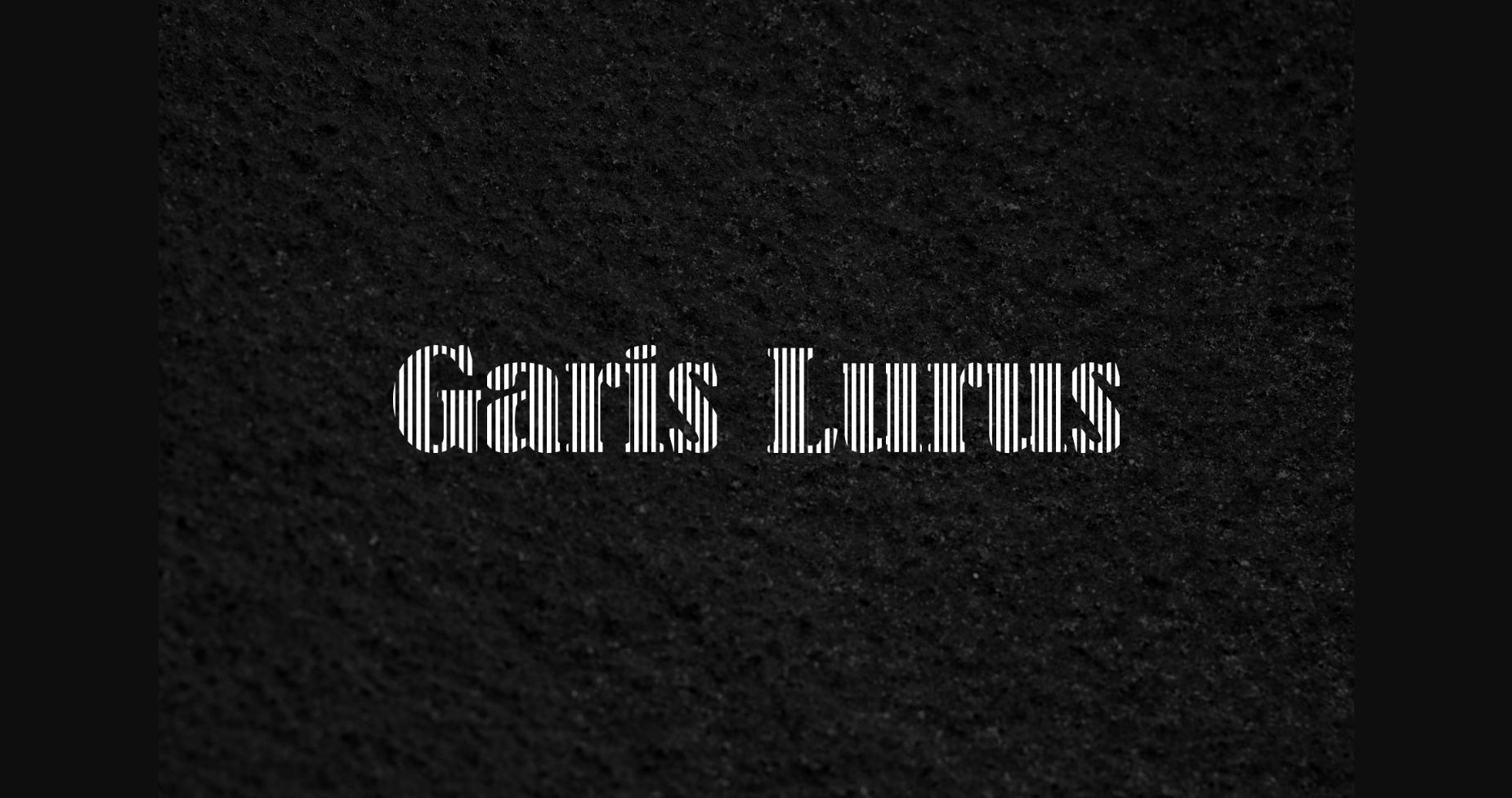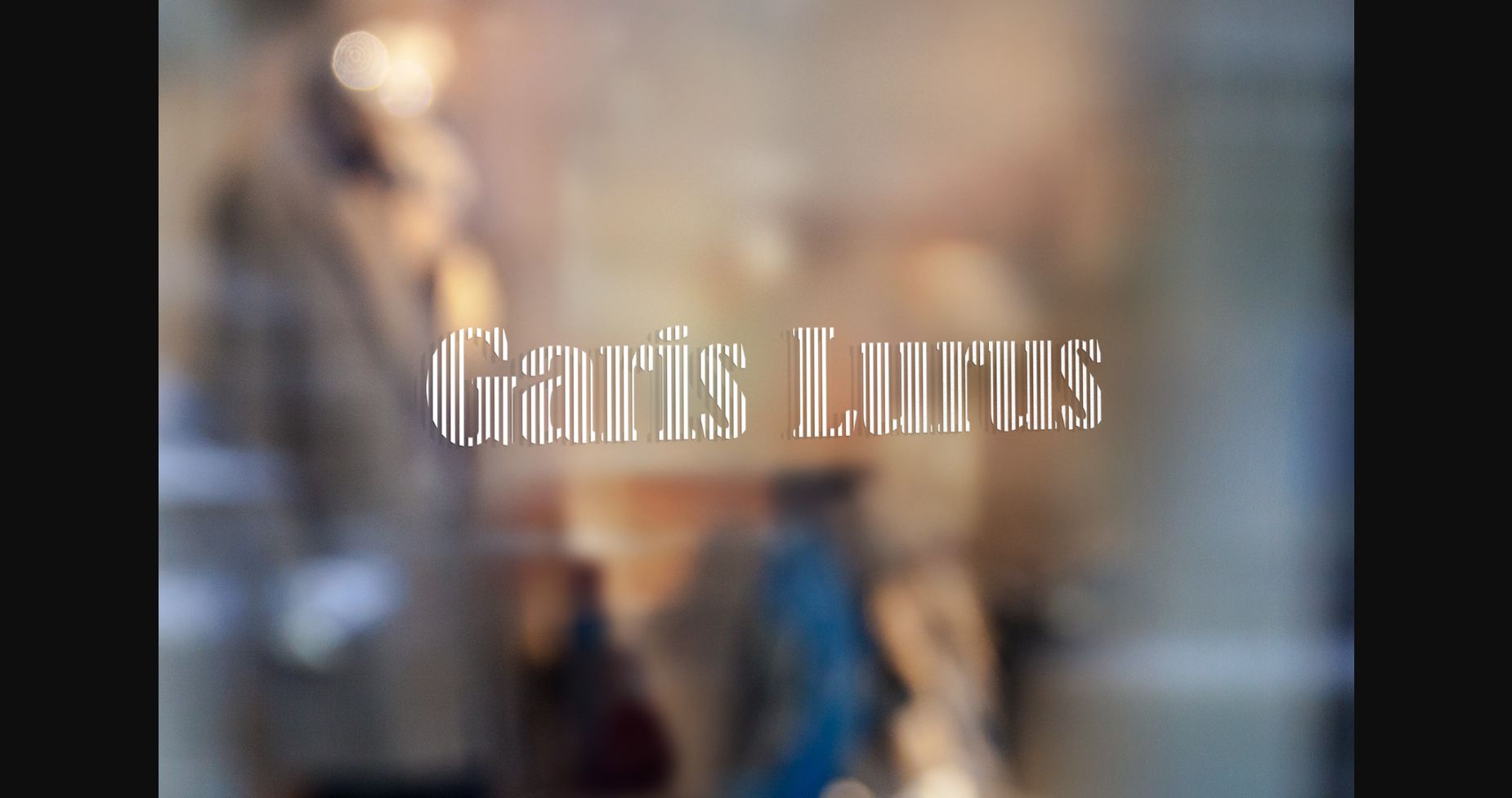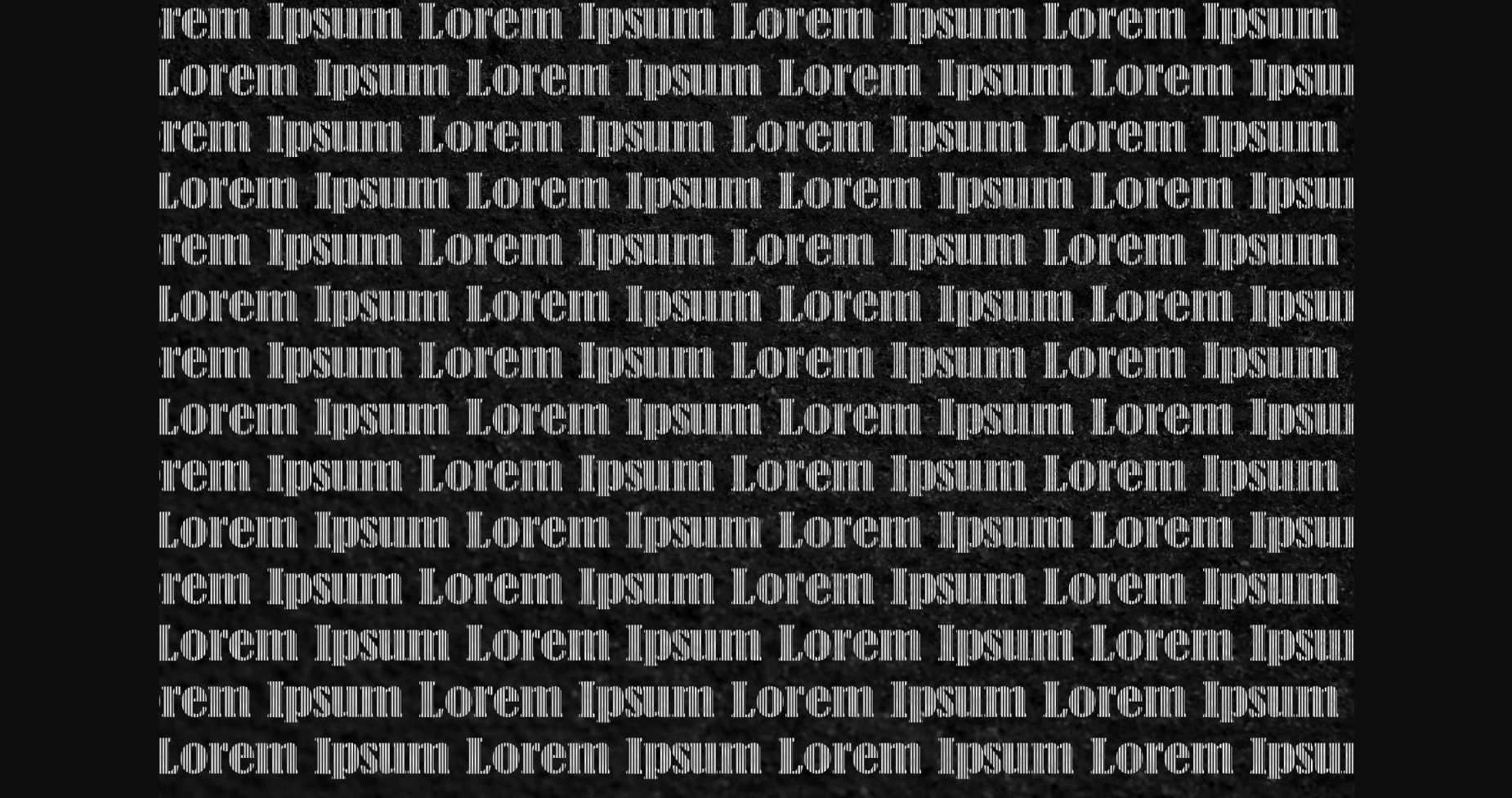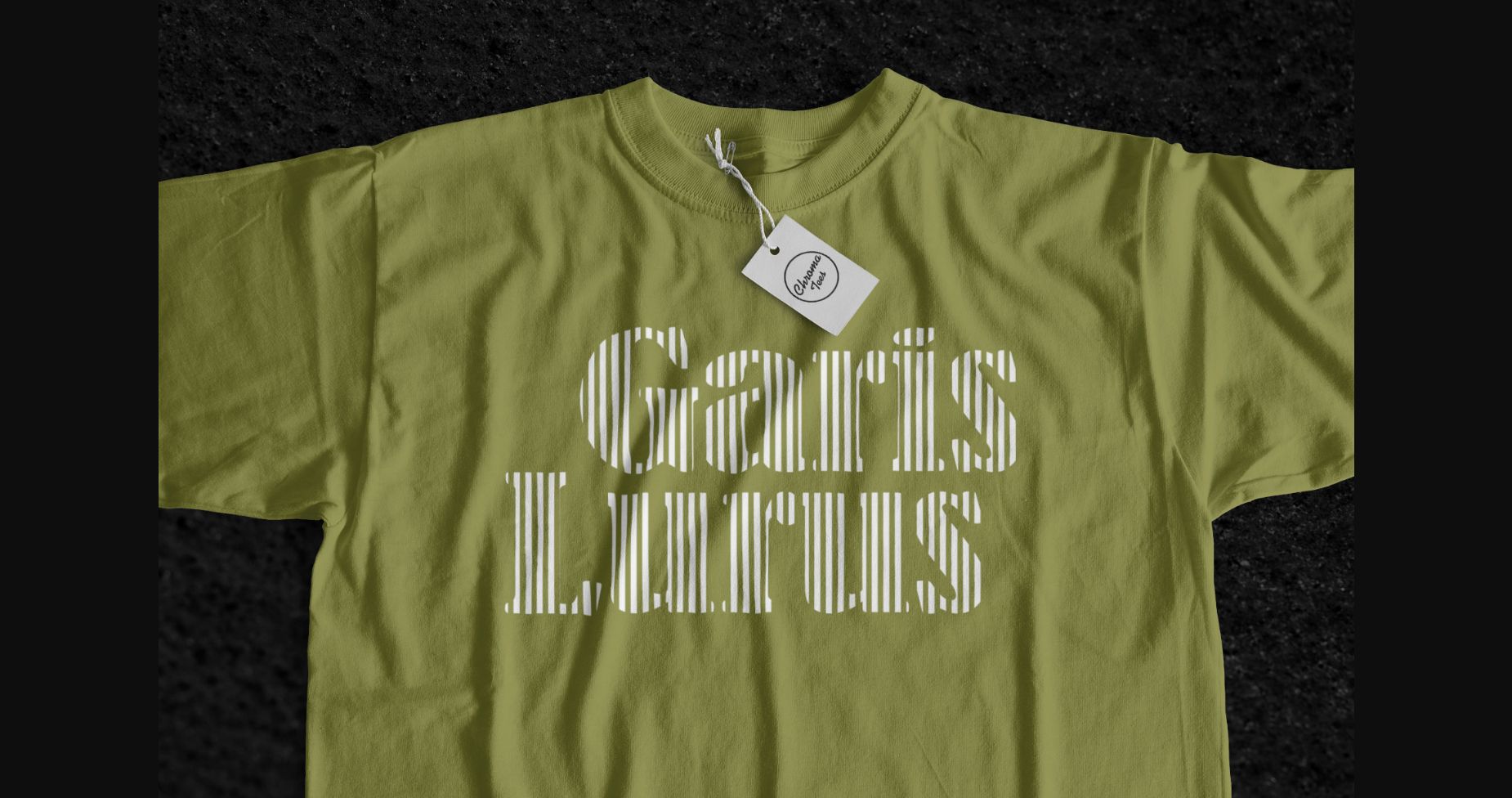
About Garis Lurus Font
Garis Lurus is a strikingly modern serif font that is both stylish and unique. Its clean lines and geometric shapes give it a contemporary edge, while its classic serif elements provide a sense of timelessness. This font is perfect for those seeking a modern twist on traditional typography.